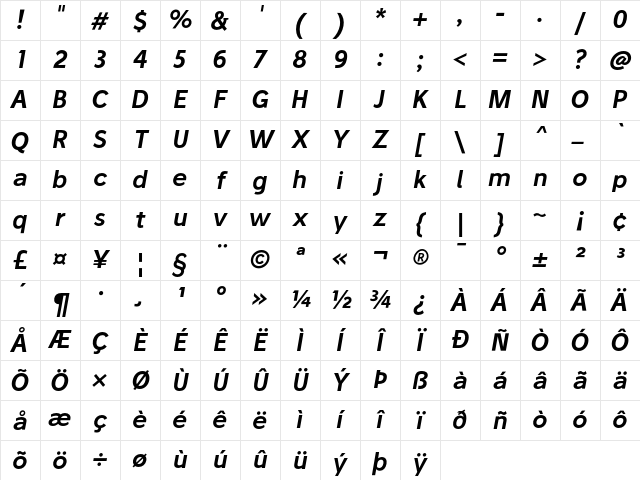
Stilu SemiBold Oblique
Foundry: Genilson Lima Santos
Designer: Genilson Lima Santos
Design Context for Stilu
Stilu is a composed and adaptable typeface that performs quietly and consistently across a wide range of design contexts. The slanted form adds forward momentum and visual energy. Its bold stroke weight gives it real presence on the page.
Pro Tip: Use Stilu for emphasis, pull quotes, and subheadings where its slanted energy can add rhythm to the layout.